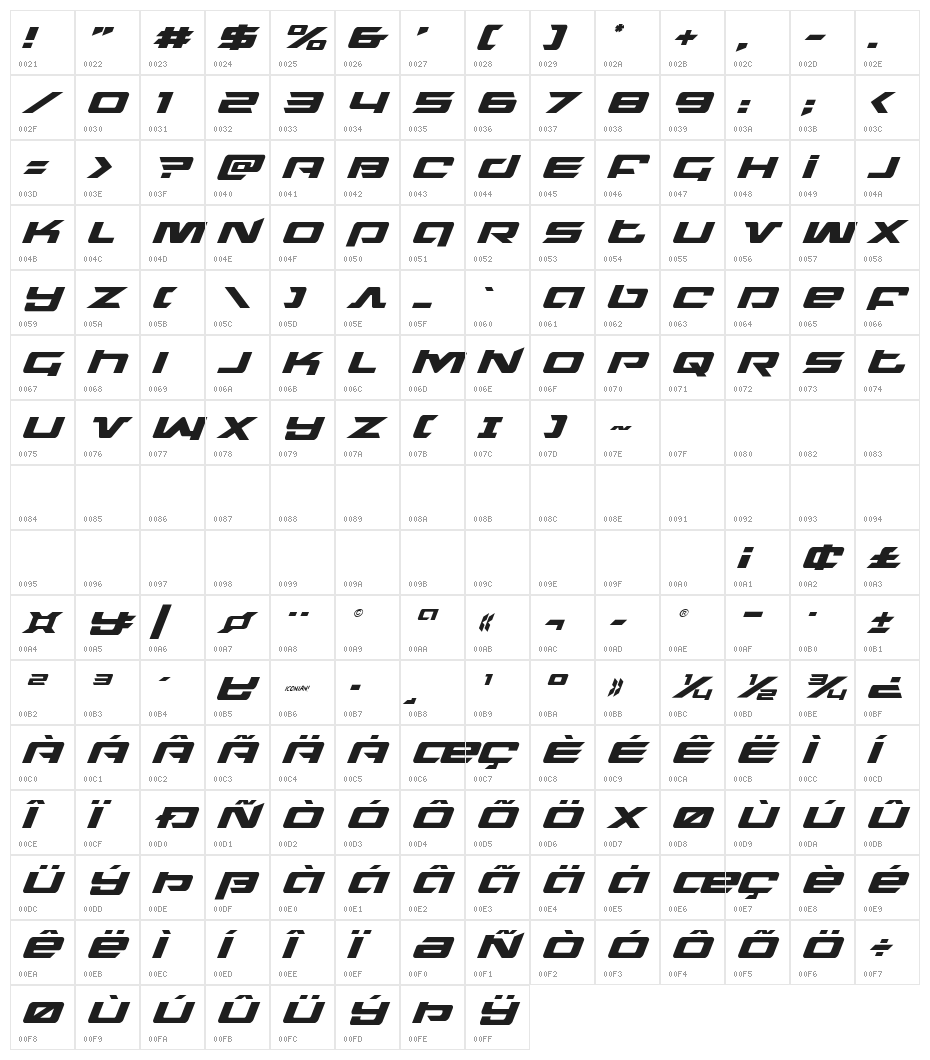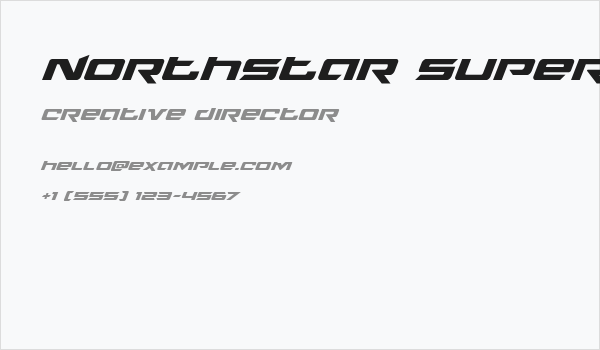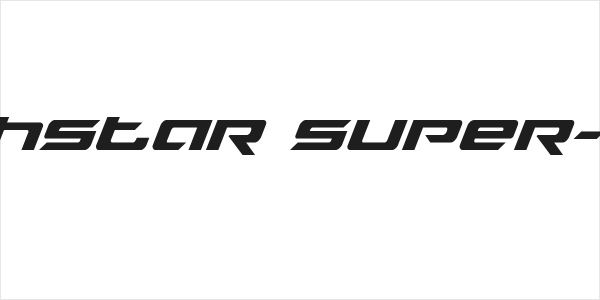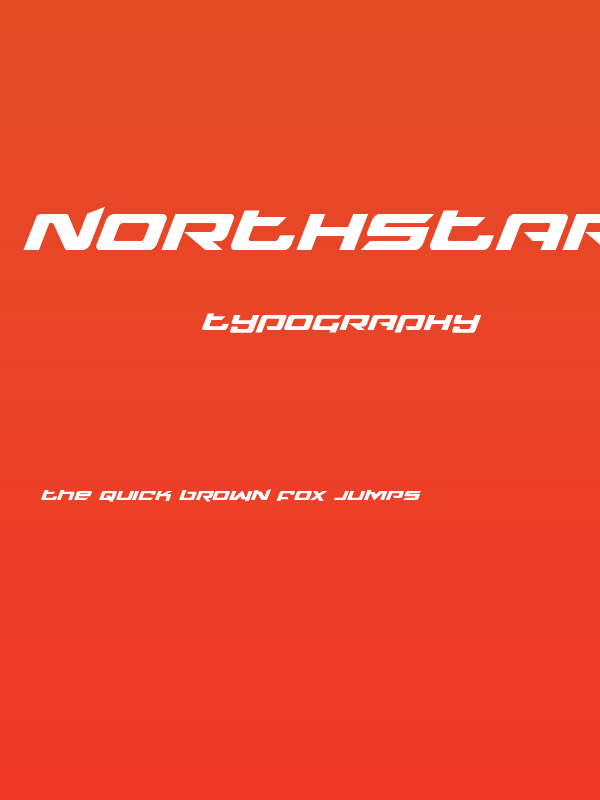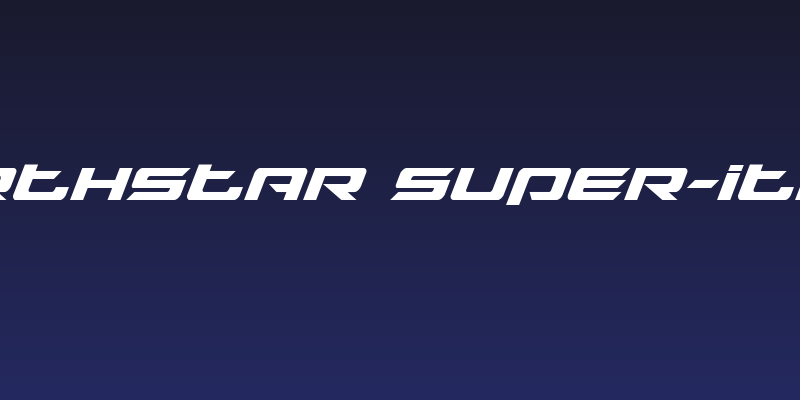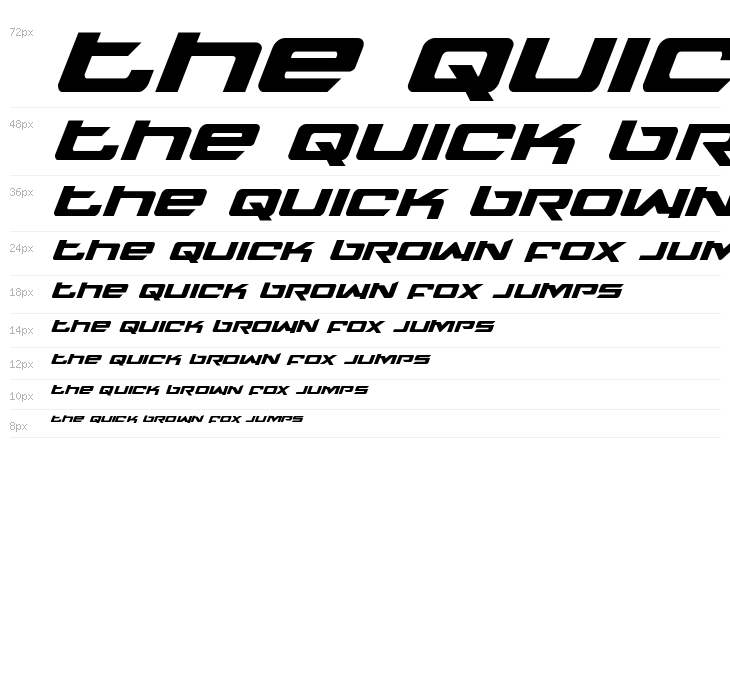
Northstar Super-Italic Font
Northstar Super-Italic Description
This font features a dynamic and futuristic design with a strong italic slant, giving it a sense of motion and speed. The characters are bold and angular, with sharp edges and a geometric structure that conveys a modern and technological feel. The uppercase and lowercase letters maintain a consistent style, enhancing readability while still being visually striking. The numerals and special characters are designed to match the overall aesthetic, making them suitable for a variety of applications where a bold and contemporary look is desired.
| Proposed Projects | Ideal for technology branding, sports team logos, video game titles, and sci-fi themed projects. |